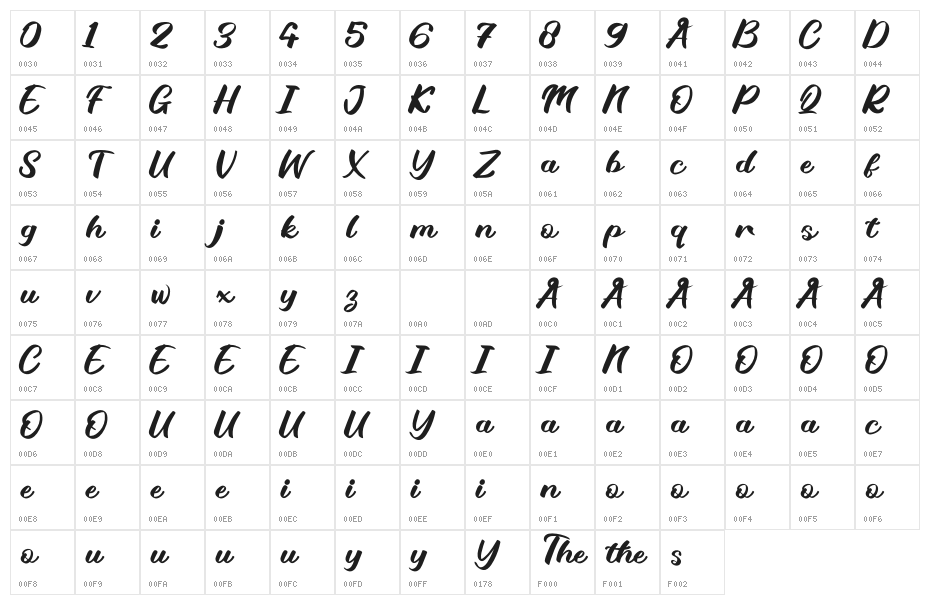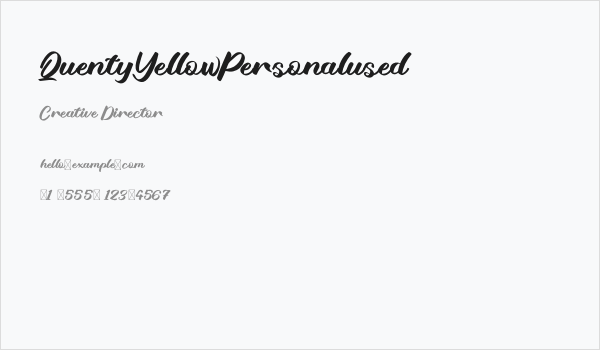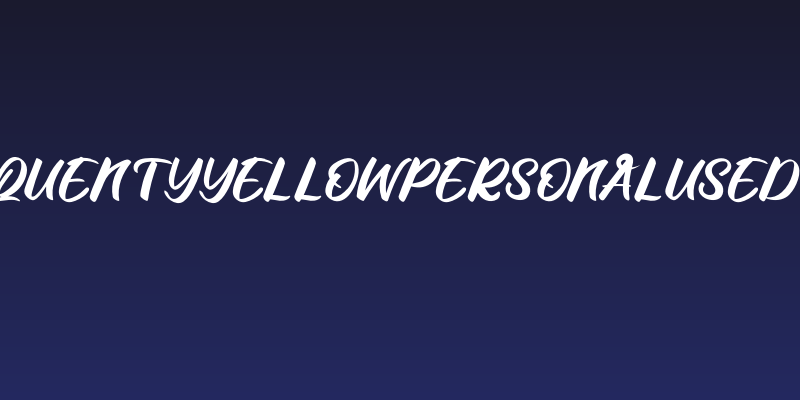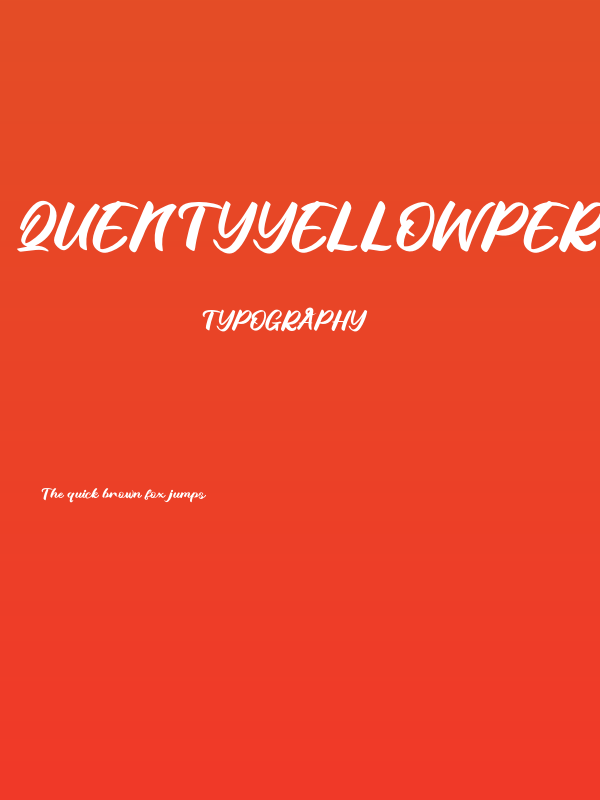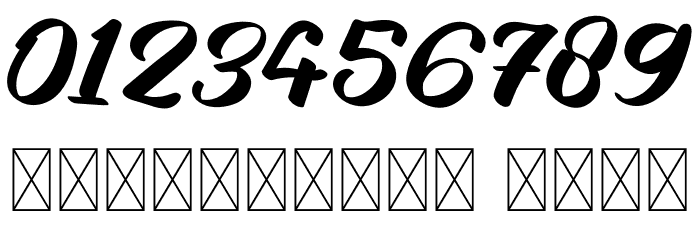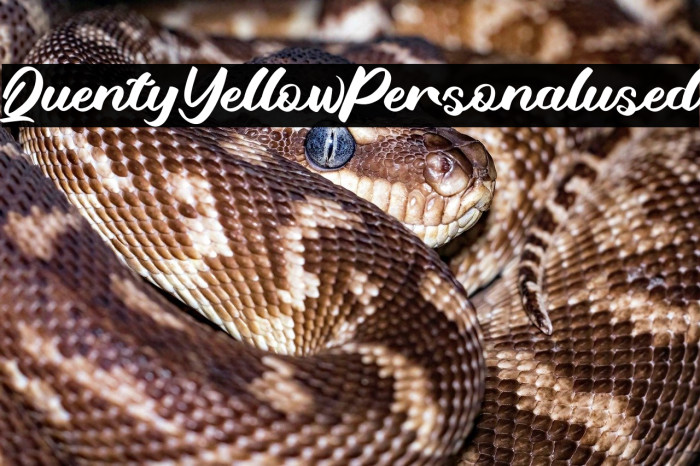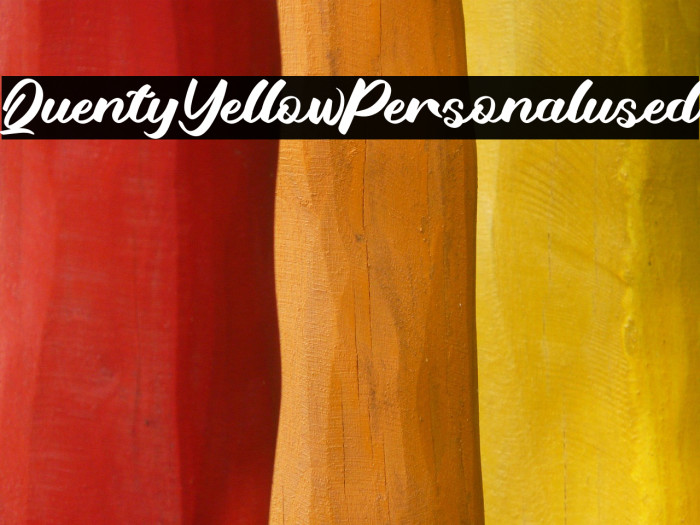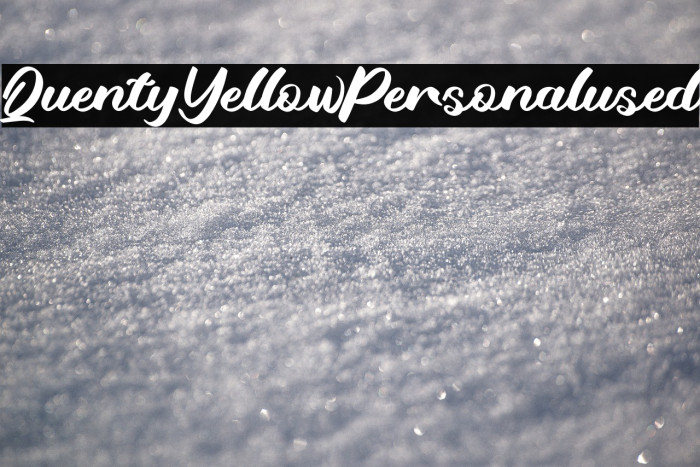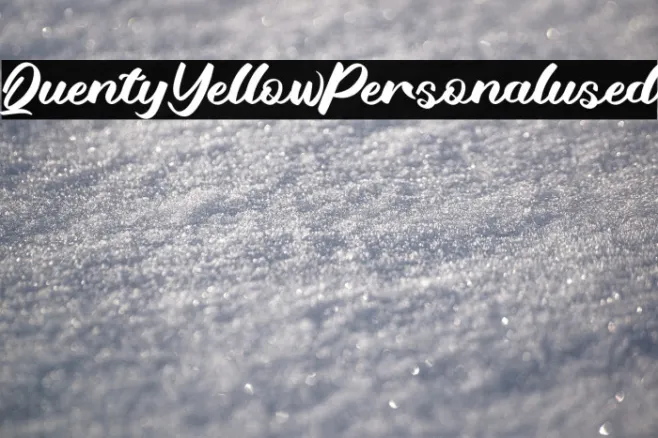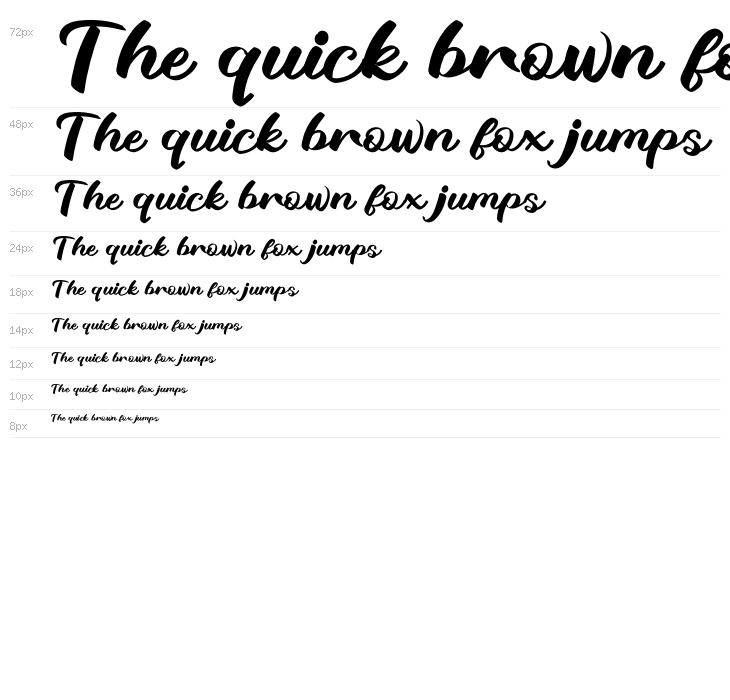
QuentyYellowPersonalused Font
QuentyYellowPersonalused Description
This font features a bold and expressive script style with flowing, cursive letterforms. The characters are connected, creating a sense of fluidity and movement. The uppercase letters are slightly more elaborate, with decorative swashes and loops, while the lowercase letters maintain a consistent rhythm. The numbers are equally stylized, matching the overall aesthetic. This font is designed to make a statement, with its thick strokes and dynamic appearance, making it ideal for creative and artistic projects.